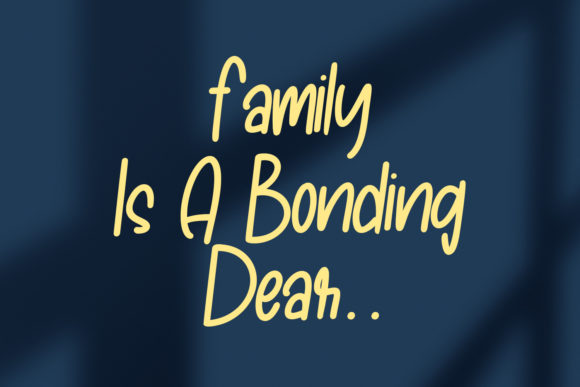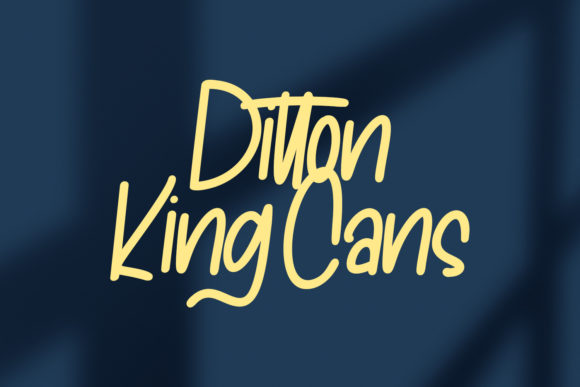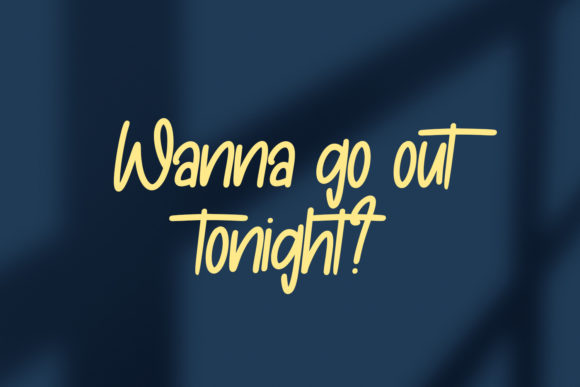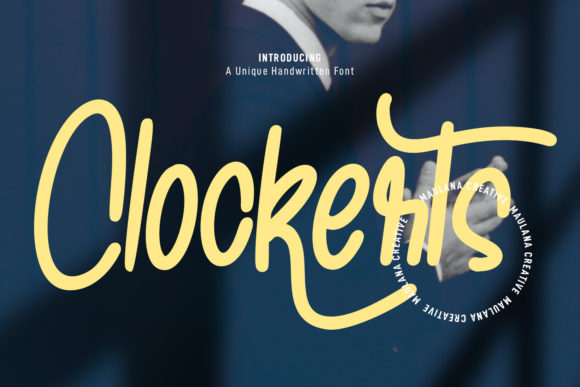
Introducing Clockerts Font: Elevate Your Designs with a Modern Script Font
In the world of typography, a font can make or break a design. For designers and crafters looking to add a touch of elegance and modernity to their work, Clockerts Font is an excellent choice. This fancy, casual, and modern script font is designed to give you the creative freedom to produce stunning work. With its clean mono-line stroke, fun characters, ligatures, and alternates, Clockerts Font is perfect for a wide range of design applications.
What Makes Clockerts Font Stand Out?
Clockerts Font boasts a unique combination of features that set it apart from other fonts. Its clean mono-line stroke gives it a sleek and modern look, while its fun characters, ligatures, and alternates provide endless possibilities for creative expression. Whether you’re working on a logo design, social media graphics, movie titles, book titles, or even long text, Clockerts Font is up to the task.
Key Features of Clockerts Font
- Clean Mono-Line Stroke: Clockerts Font features a clean and sleek mono-line stroke that gives it a modern and sophisticated look.
- Fun Characters, Ligatures, and Alternates: The font comes with a range of fun characters, ligatures, and alternates that allow you to add a touch of personality to your designs.
- High Versatility: The font is suitable for a wide range of design projects, from logo design and social media graphics to movie titles, book titles, and long text.
Design Applications for Clockerts Font
- Logo Design: Create a stunning logo for your brand with Clockerts Font. Its modern and sleek design makes it perfect for businesses looking to establish a strong brand identity.
- Social Media Graphics: Use Clockerts Font to create eye-catching social media graphics that will help you stand out from the crowd.
- Movie Titles: Add a touch of elegance to your movie titles with Clockerts Font. Its clean and sophisticated design makes it perfect for film and video production.
- Book Titles: Use Clockerts Font to create beautiful and elegant book titles that will make your book stand out on the shelves.
- Long Text: Clockerts Font is also suitable for long text, making it perfect for articles, blog posts, and other written content.
- Experiment with Different Sizes: Clockerts Font looks great in a variety of sizes, so don’t be afraid to experiment and find the perfect size for your design.
- Play with Ligatures and Alternates: The font comes with a range of ligatures and alternates, so be sure to experiment with these to add some personality to your design.
In conclusion, Clockerts Font is an excellent choice for designers and crafters looking to add a touch of elegance and modernity to their work. With its clean mono-line stroke, fun characters, ligatures, and alternates, this font is perfect for a wide range of design applications. Whether you’re working on a logo design, social media graphics, movie titles, book titles, or long text, Clockerts Font is sure to help you produce stunning work.